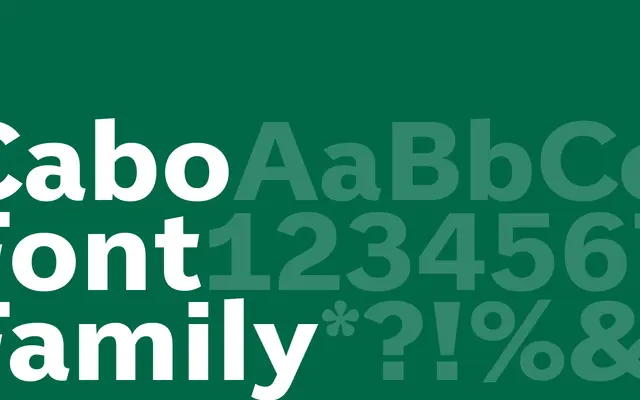
A serif typeface from Playtype suited to editorial and literary settings where warm, readable text faces are needed.
Cabo is a serif from Copenhagen-based Playtype, positioned for text-heavy editorial and literary contexts. The page copy leans into characterful, narrative-driven usage, suggesting the face is intended to carry long-form reading with personality. Details on weights and language support are limited from available page content.
The page content is too sparse to confirm subcategory with certainty, but Playtype's Cabo is a serif typeface in the transitional tradition based on available context from the foundry's catalogue.